List Of Elegant Font Canva Ideas
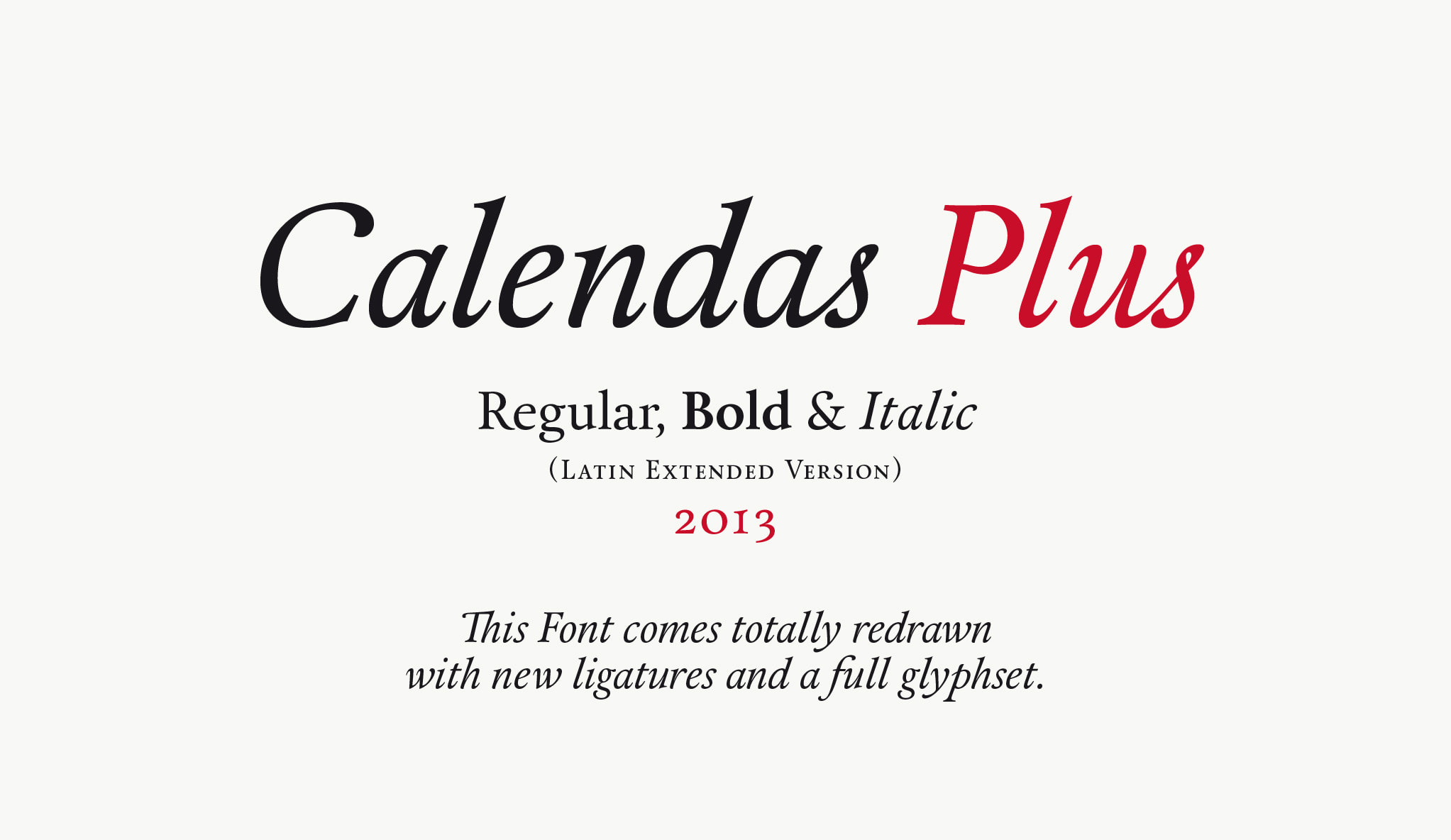
Web 34 | billion miracles. Click to find the best 2,787 free fonts in the elegant style. Web a good font can make or break the overall aesthetic of your design.
Billion Miracles (Available Free) 3.
Web the ultimate guide to elegant canva fonts. That careful selection and curation of fonts. This sans serifs trend is rounding up the fonts, creating a friendly mood, as seen in brands like airbnb, google and spotify.
Web looking for elegant canva fonts? Web all three of these fonts are extremely easy on the eye, neat and elegant with slightly rounded cursive letters. They convey simplicity, honesty and.
That’s Why It’s Essential To Know The Canva Fonts That Go Together And How To Use Them Best.
For A Free Font, The Bakerie Series Is Amazing.
Web whether you’re looking for beautiful instagram script fonts or elegant accents for your pinterest pins, these 55 pretty canva fonts will save the day. Unique display typeface with contrasting curved and linear elements influenced by russian typographic traditions. Web ✦ my favorite elegant aesthetic canva fonts ✦ 1.
50 Free Stylish Fonts To Bring A Touch Of Elegance To Any Design.
From modern, classic and minimal fonts to retro and the coolest handwriting. The splash of color adds to the excitement and allows the typeface to take center stage in any. Web 34 | billion miracles.